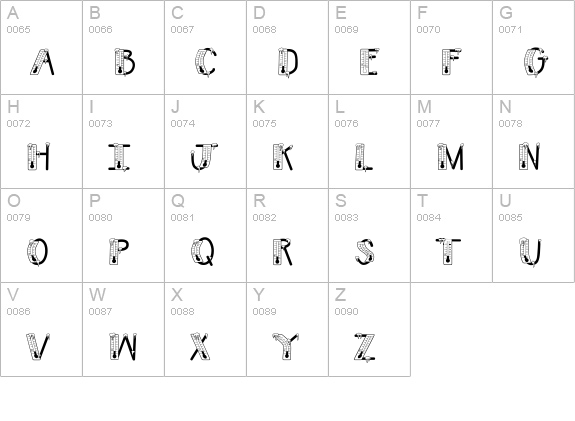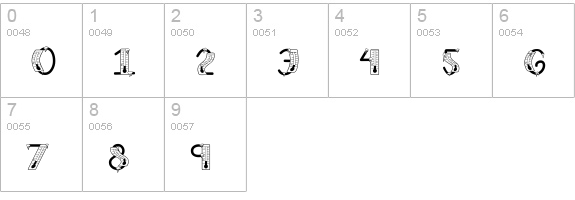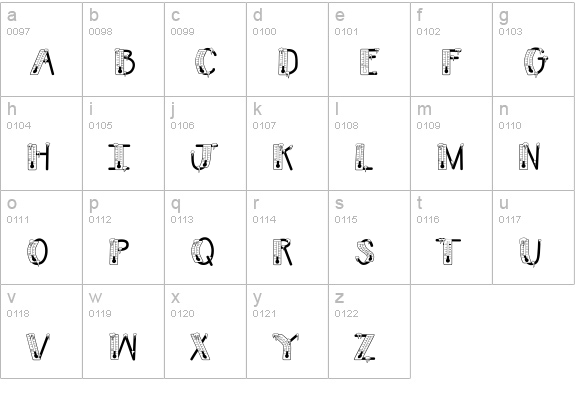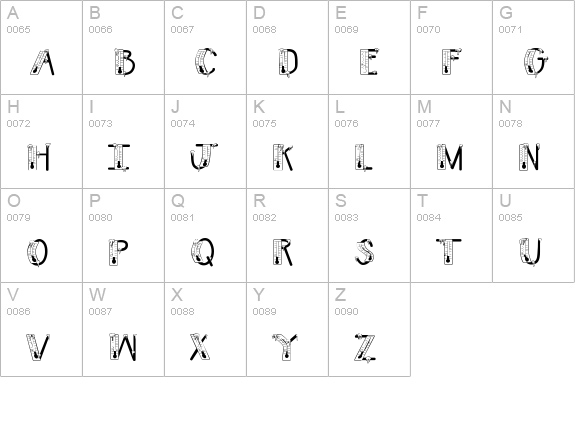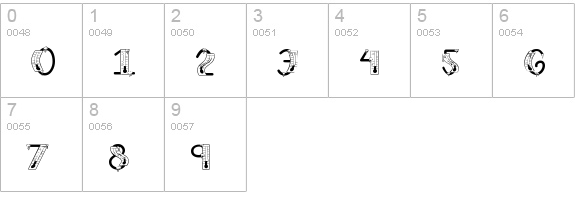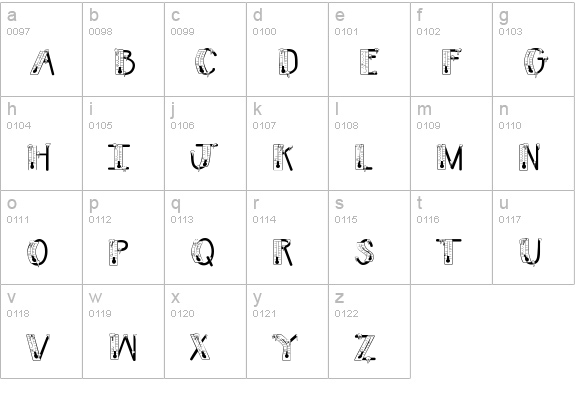
CK Freezing Font Details
Introducing CK Freezing font - a stunning display typeface that embodies a perfect blend of elegance and modernity. The unique and intricate design of CK Freezing font captures the essence of icy beauty, with its sharp edges and cool demeanor. Each letter is meticulously crafted to evoke a sense of frozen elegance, making it a perfect choice for projects that require a touch of sophistication. What sets CK Freezing font apart is its ability to convey a sense of freedom and liberation, much like the feeling of breaking free from constraints. The sleek lines and bold strokes of this font exude a sense of confidence and empowerment, making it an ideal choice for design projects that demand attention and make a statement. Best of all, CK Freezing font is freely available to download at FontsMarket.com, allowing designers and creatives to access this exquisite typeface with ease. Whether you're working on branding, advertising, or any other creative project, CK Freezing font is sure to add a touch of flair and sophistication. Embrace the freedom and beauty of CK Freezing font in your designs today!